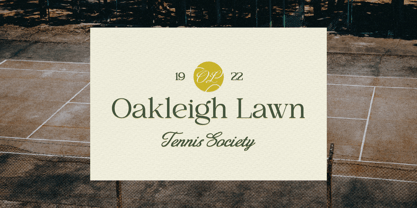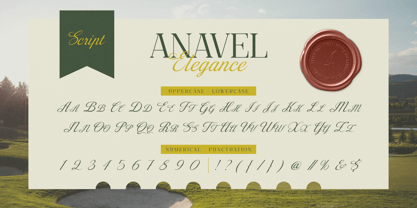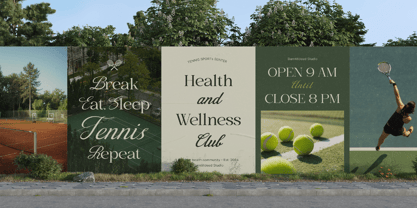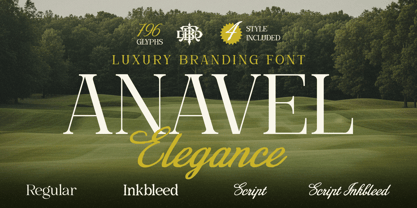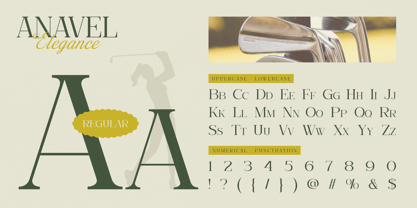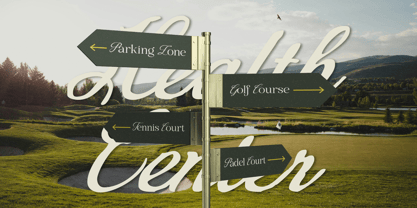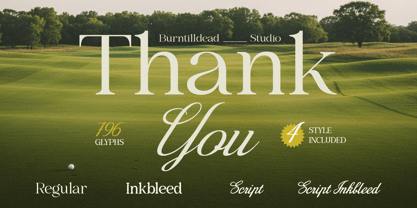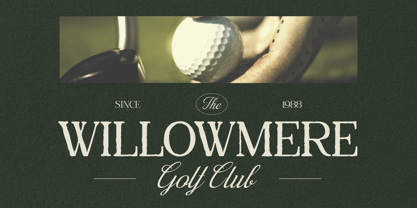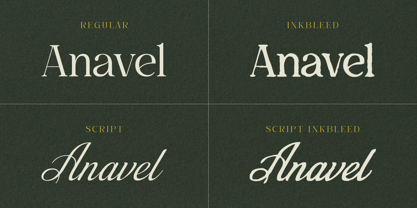
Anavel Elegance
by Burntilldead
The Anavel Elegance Font Family was designed by Eric Kurniawan and published by Burntilldead. Anavel Elegance contains 4 styles and family package options. More about this family
Anavel Elegance is a luxury branding font that blends timeless serif beauty with graceful script charm. Designed to bring a premium and refined look, this font is perfect for high-end branding, editorial layouts, logos, and sophisticated packaging. With its elegant letterforms and stylish inkbleed options, Anavel Elegance helps your design feel more exclusive and professional. The combination of classic serif and flowing script makes it super versatile, whether you want something bold, soft, or beautifully romantic. This font comes with 4 styles included: regular, ink bleed, script and script inkbleed. Each style is carefully crafted to give you more creative freedom for luxury and lifestyle projects. Perfect for: luxury branding, fashion & beauty logos, editorial & magazine, wedding design, social media graphics, packaging design, premium business identity.